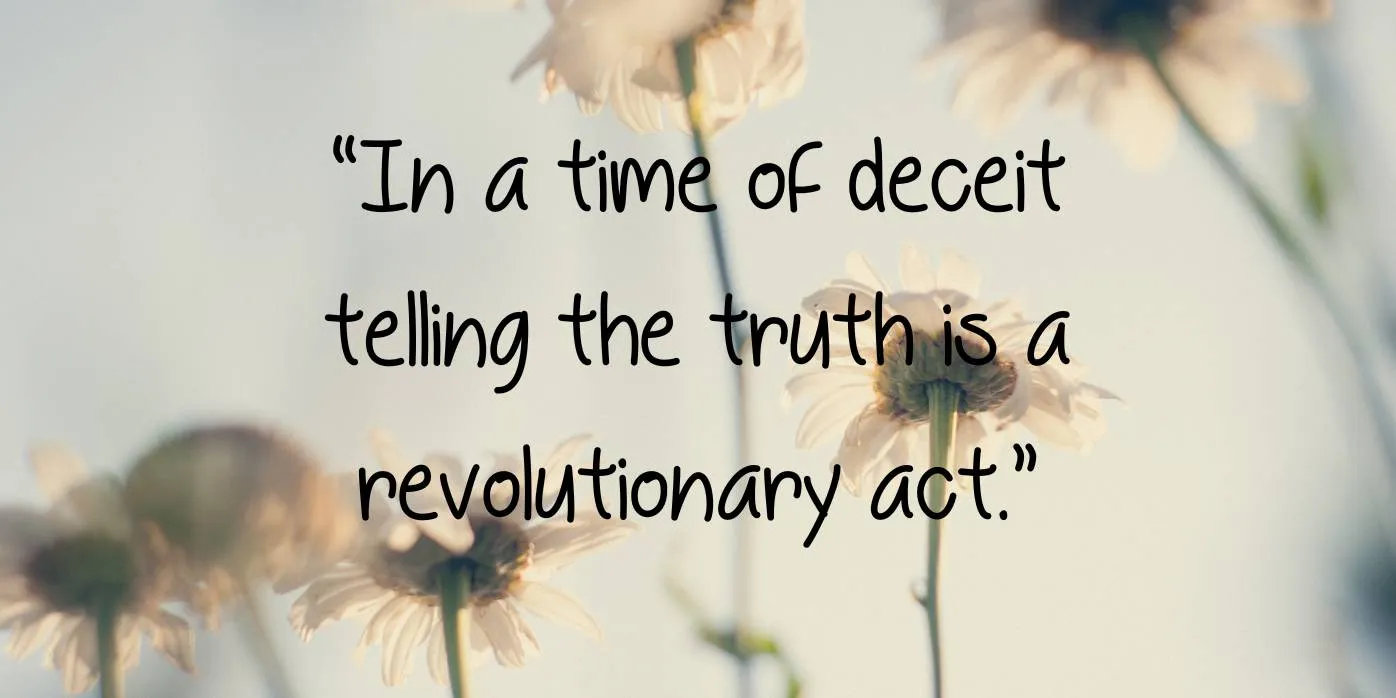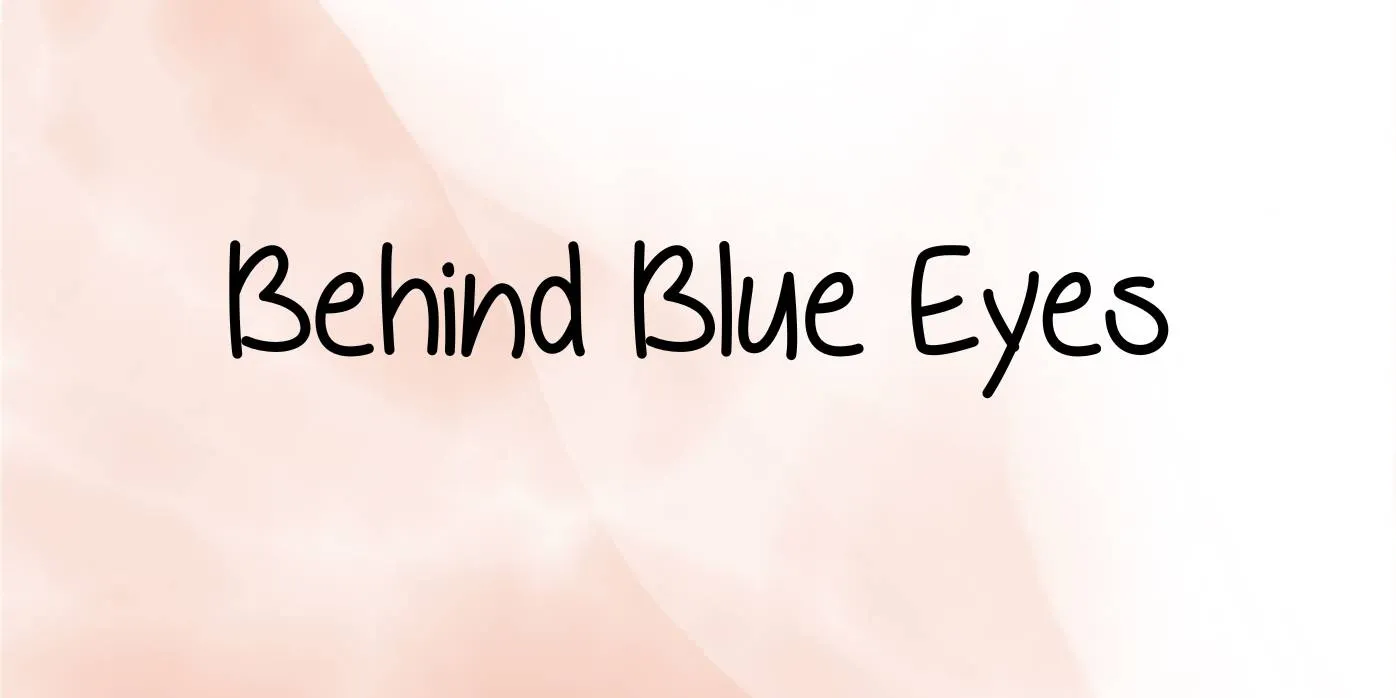
Behind Blue Eyes Font
Behind Blue Eyes Font is a handwritten type of character that has an amazing font appearance. Misti’s Fonts designed this typeface. This typeface has a fantastic look that grabs the attention of clients and causes profit for your project. There are a lot of typefaces that are best for pairing with this typeface.